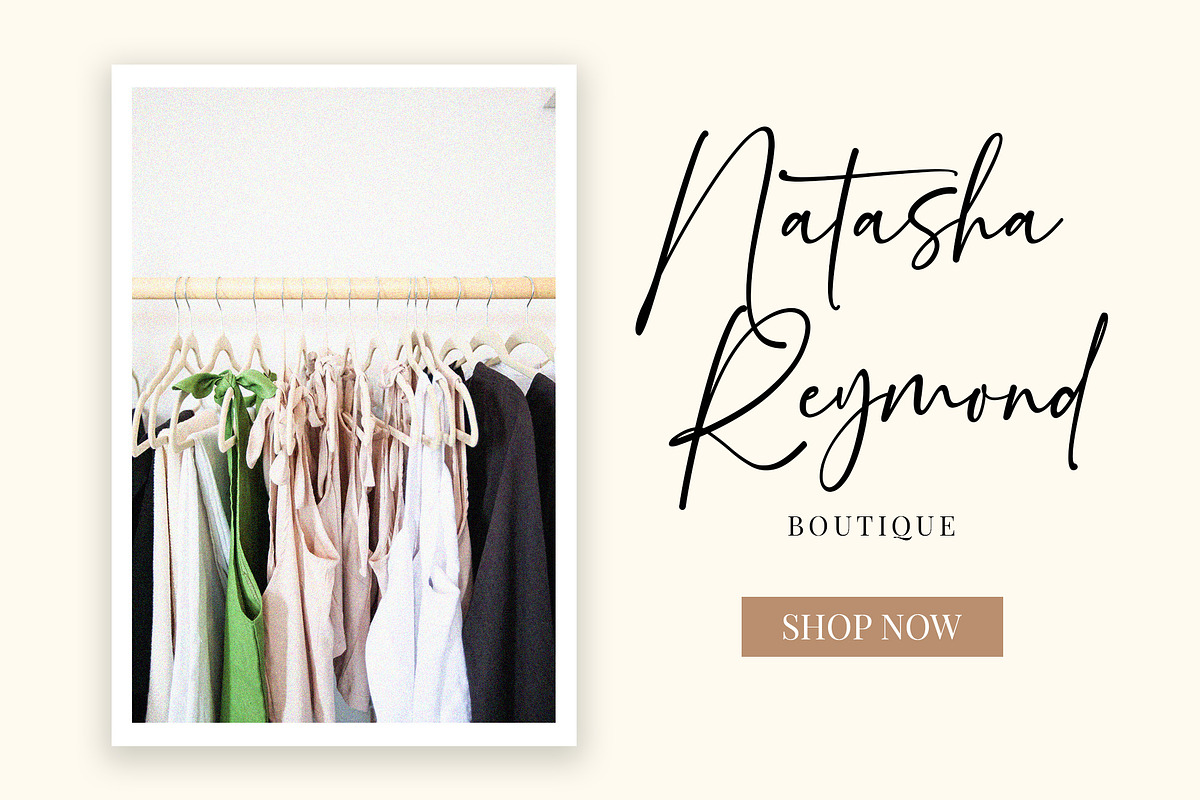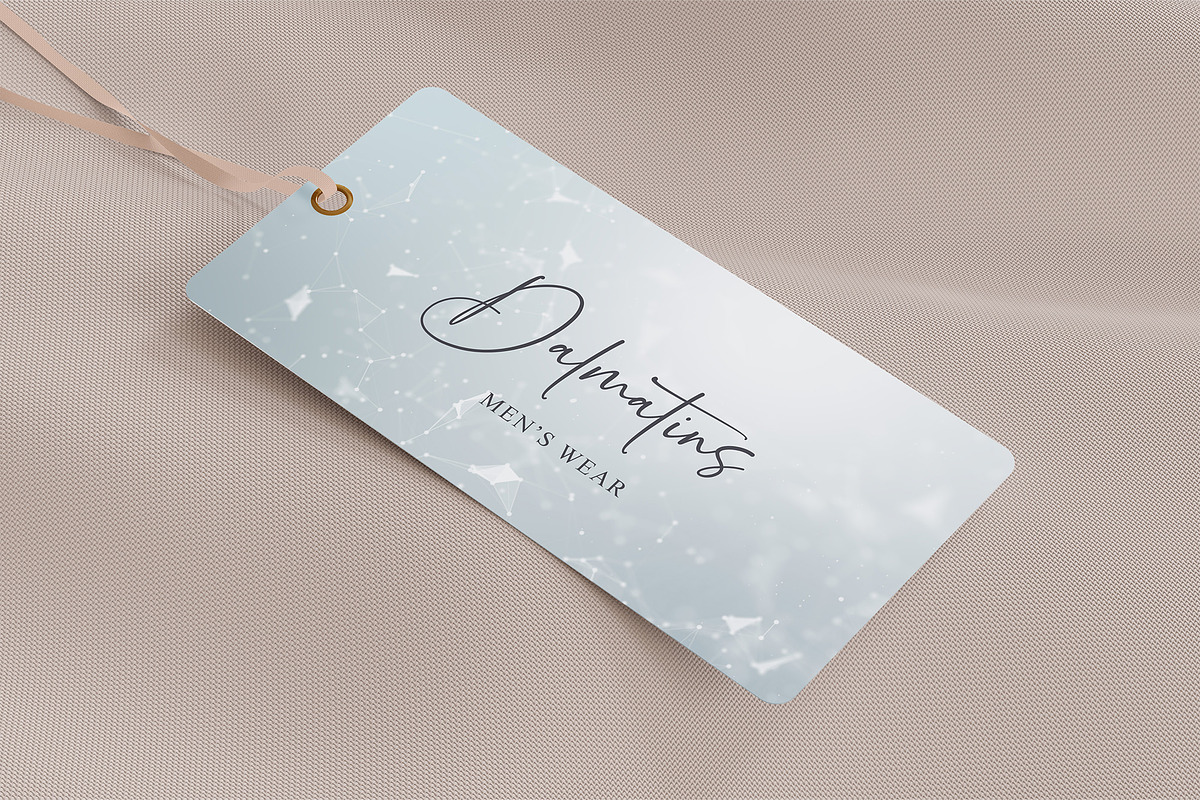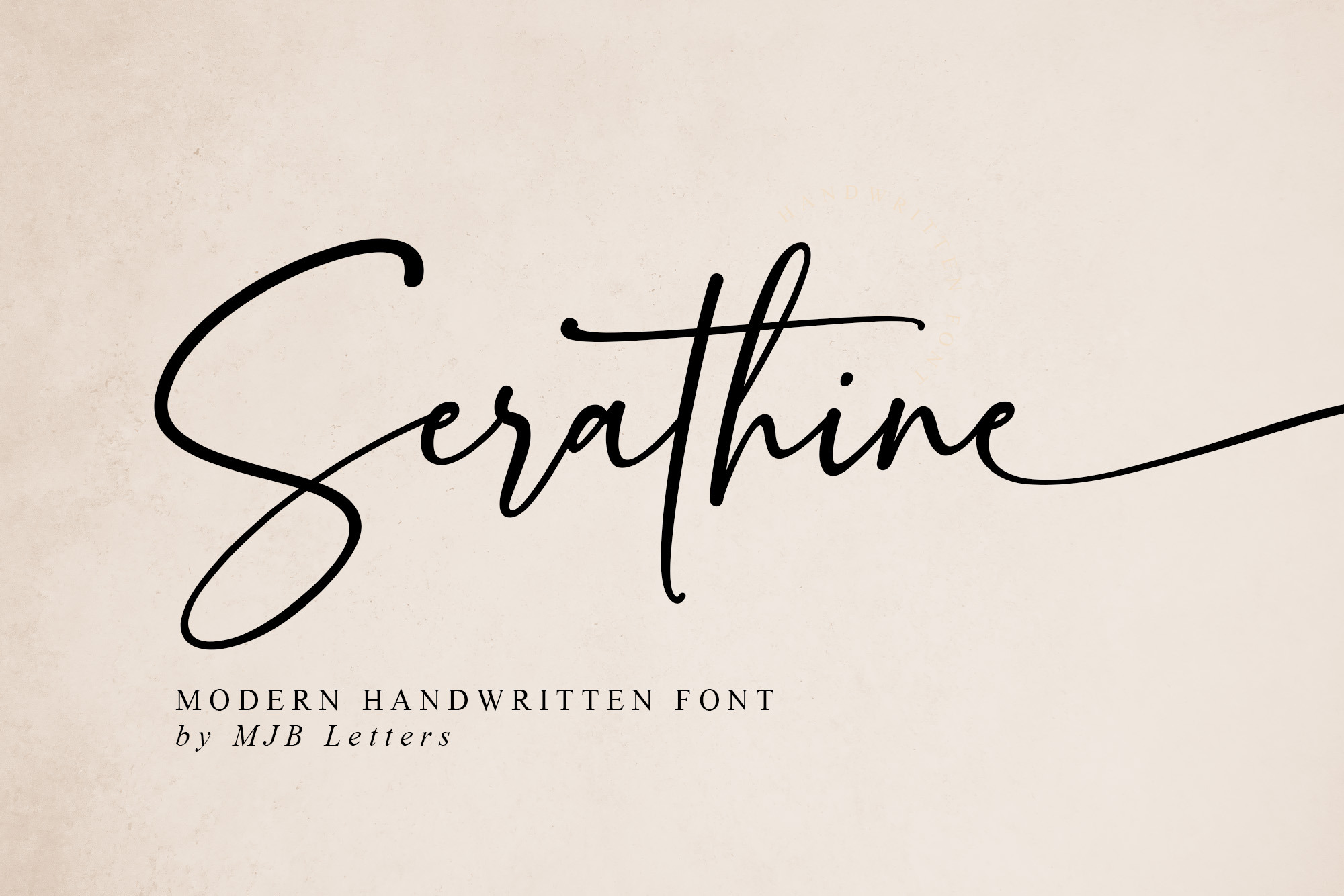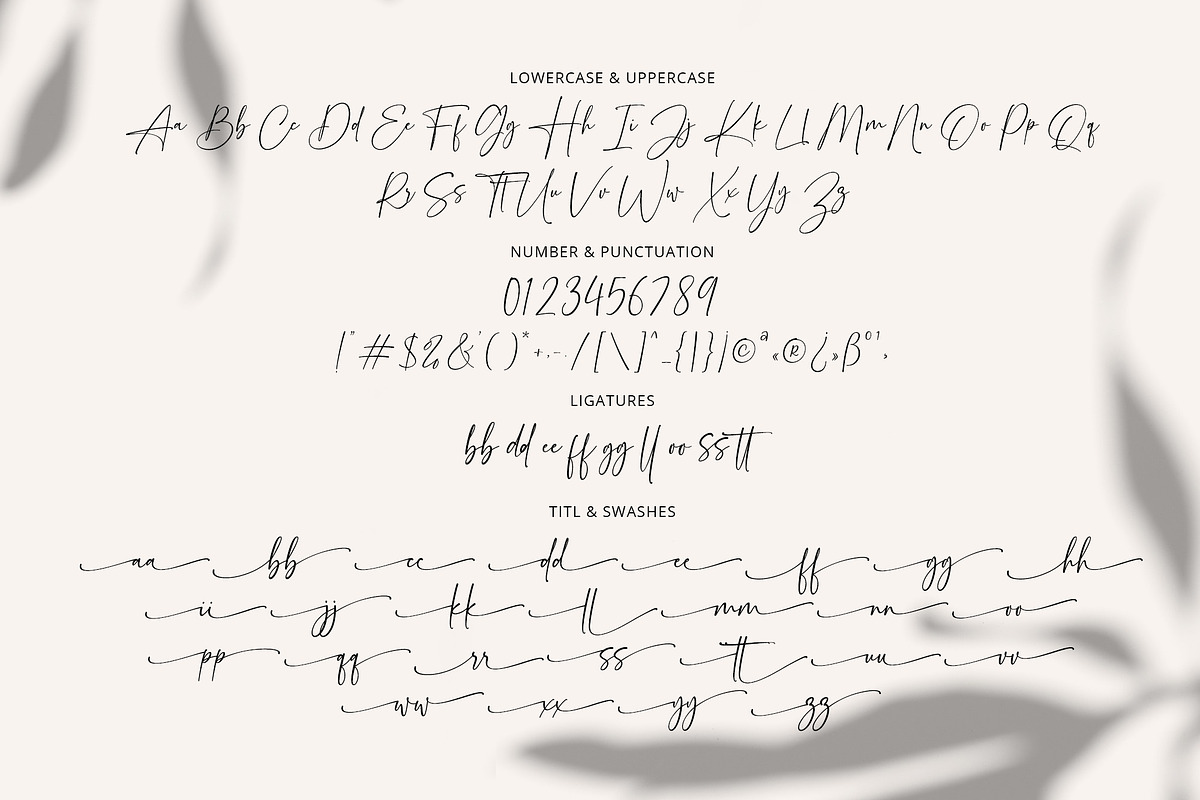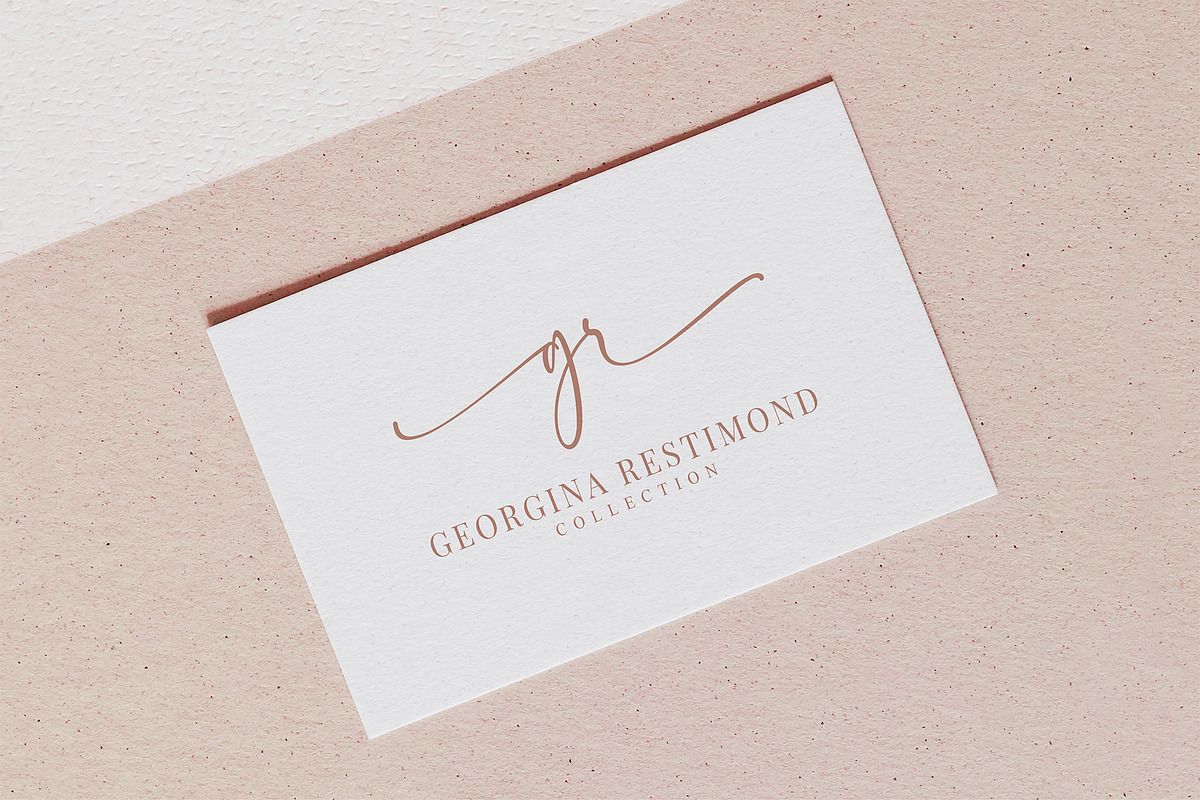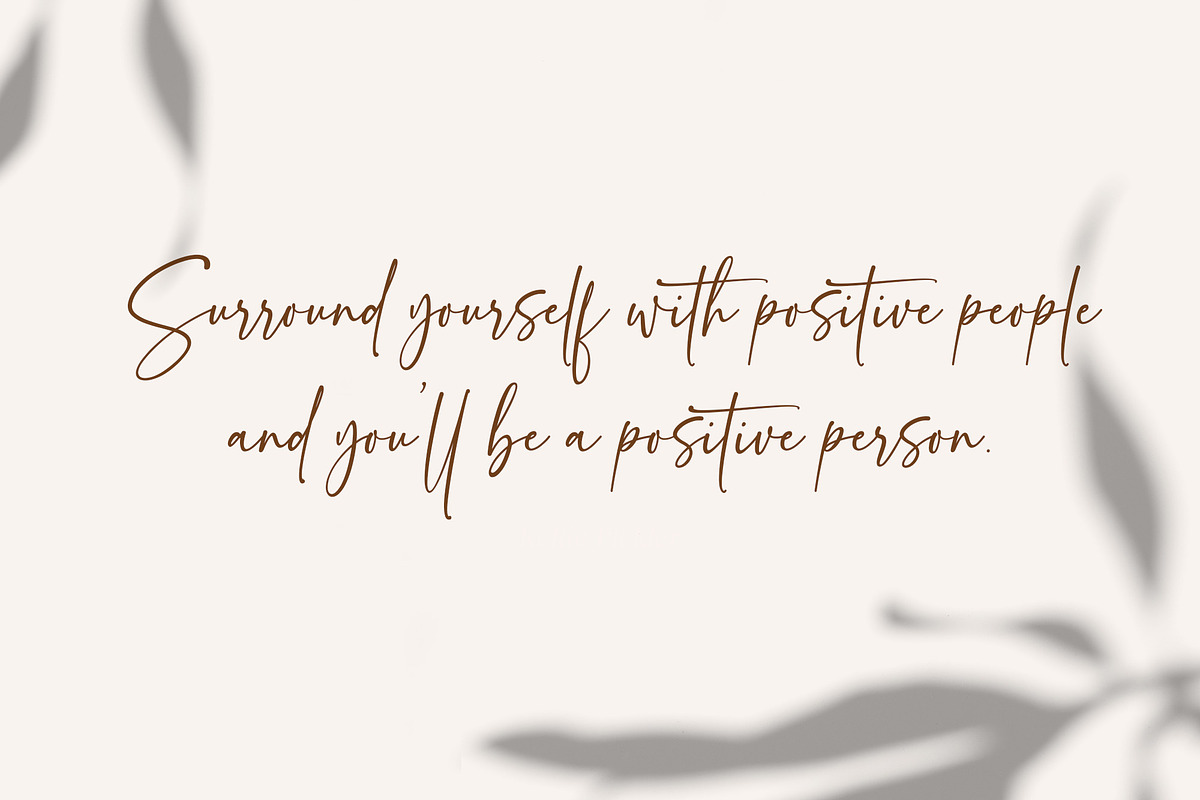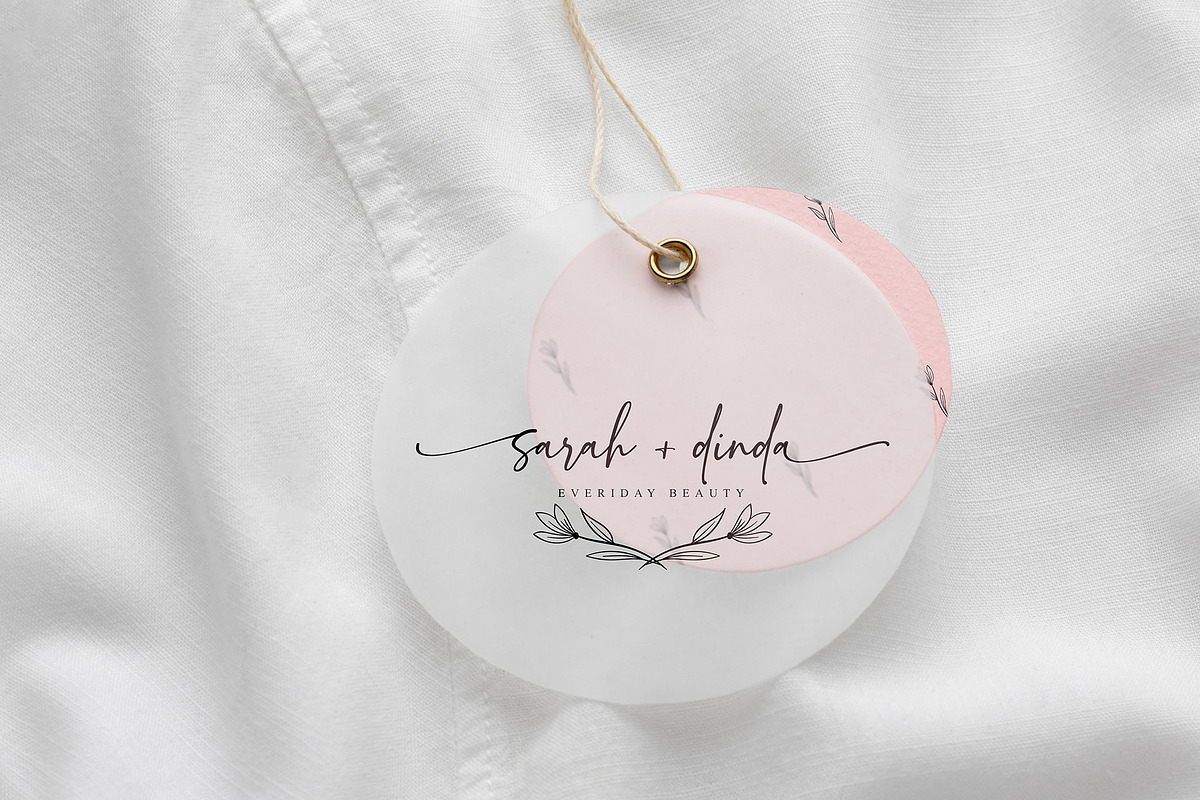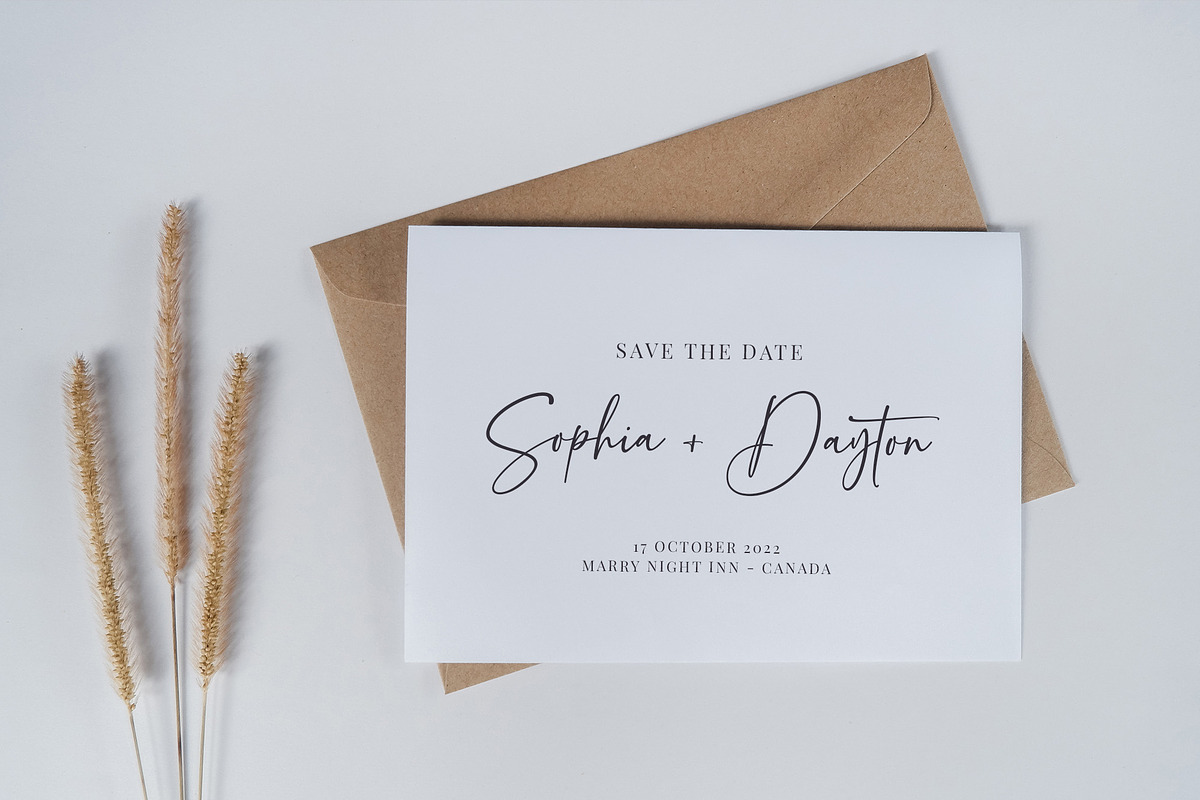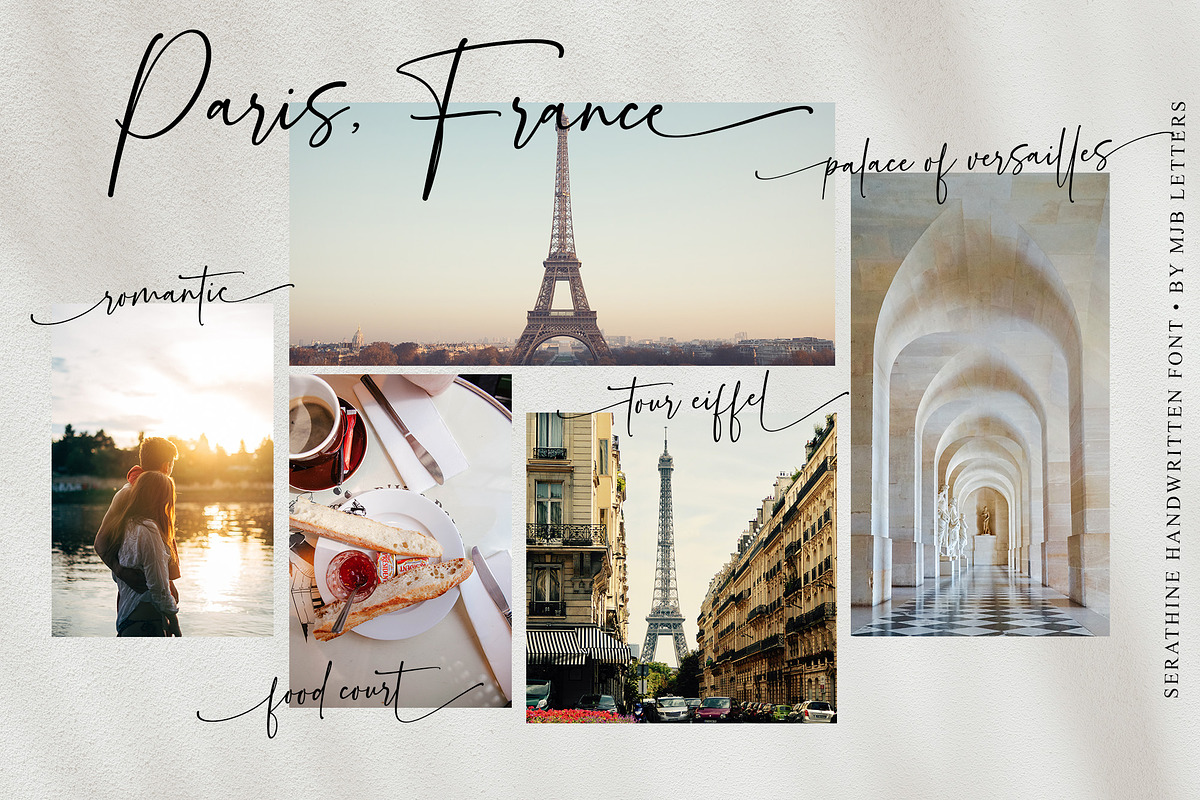
Serathine - Handwritten Font
Serathine is a modern handwritten script, ideal for wedding stationery, logo design, watermarks, branding design, websites, social media, marketing, and more!